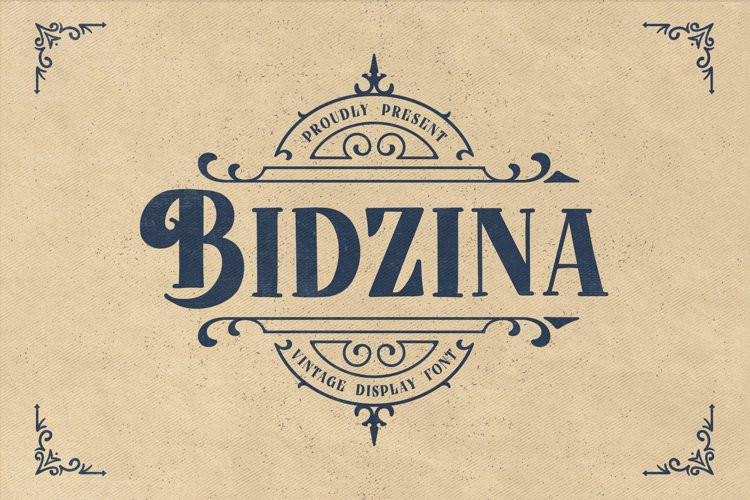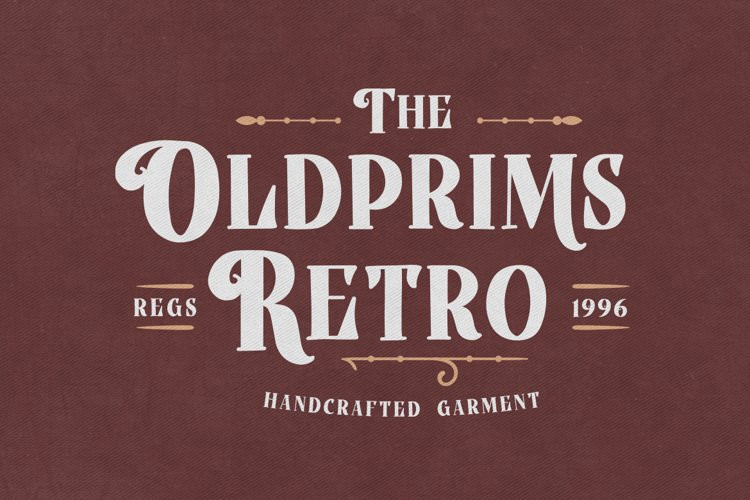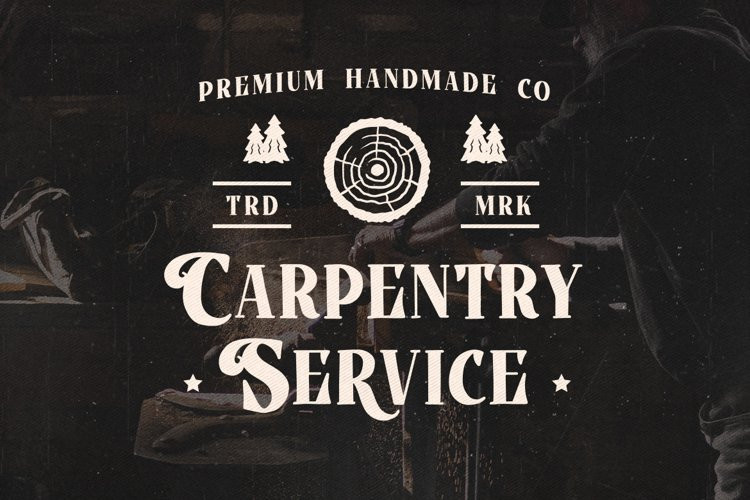
Bidzina Font
Bidzina FontBidzina is a vintage display font.
It can be used for various purposes such as logos, headings, coffee shop, vintage restaurant, letterhead, signage, labels, news, posters, badges and so much more.